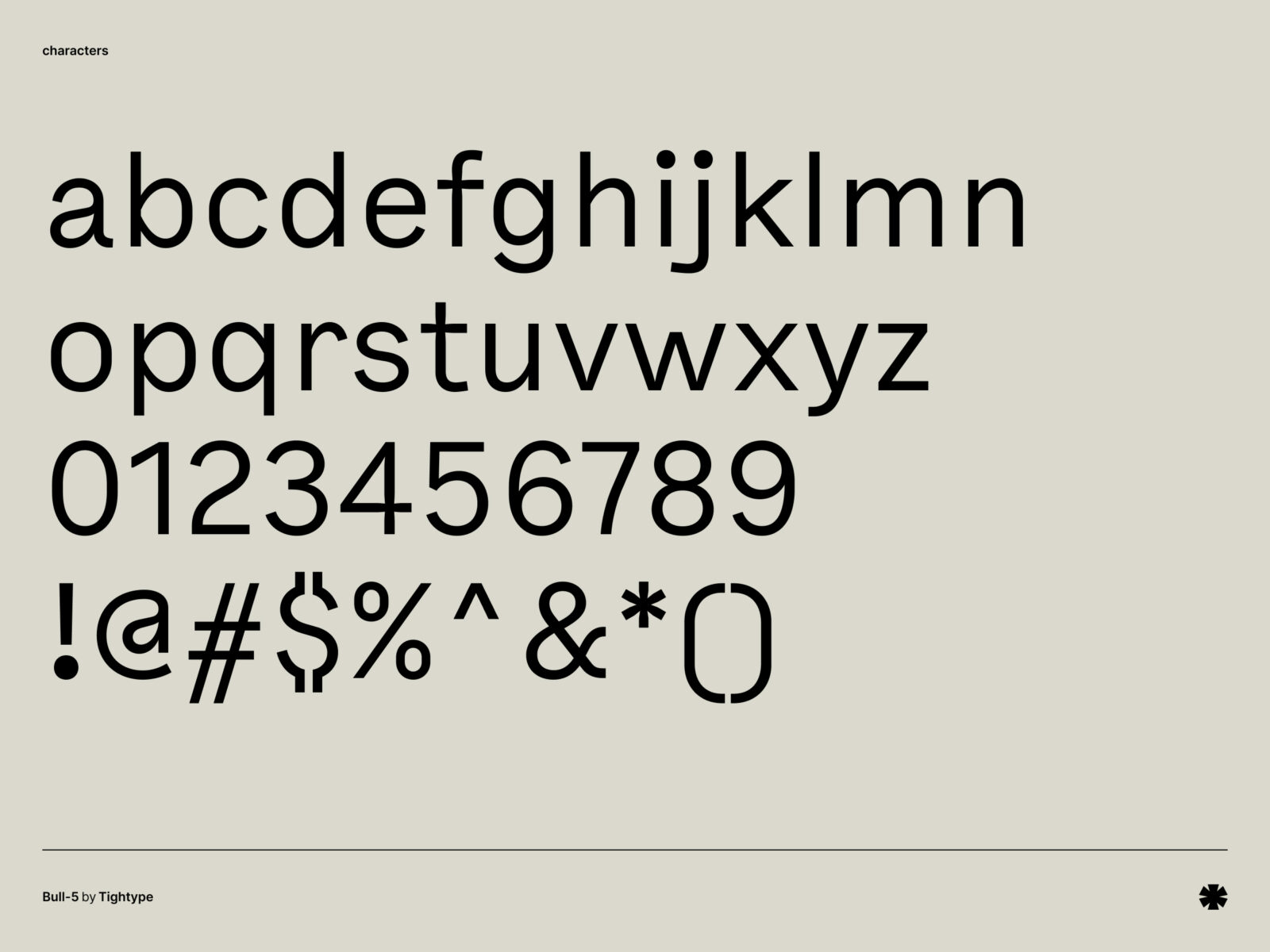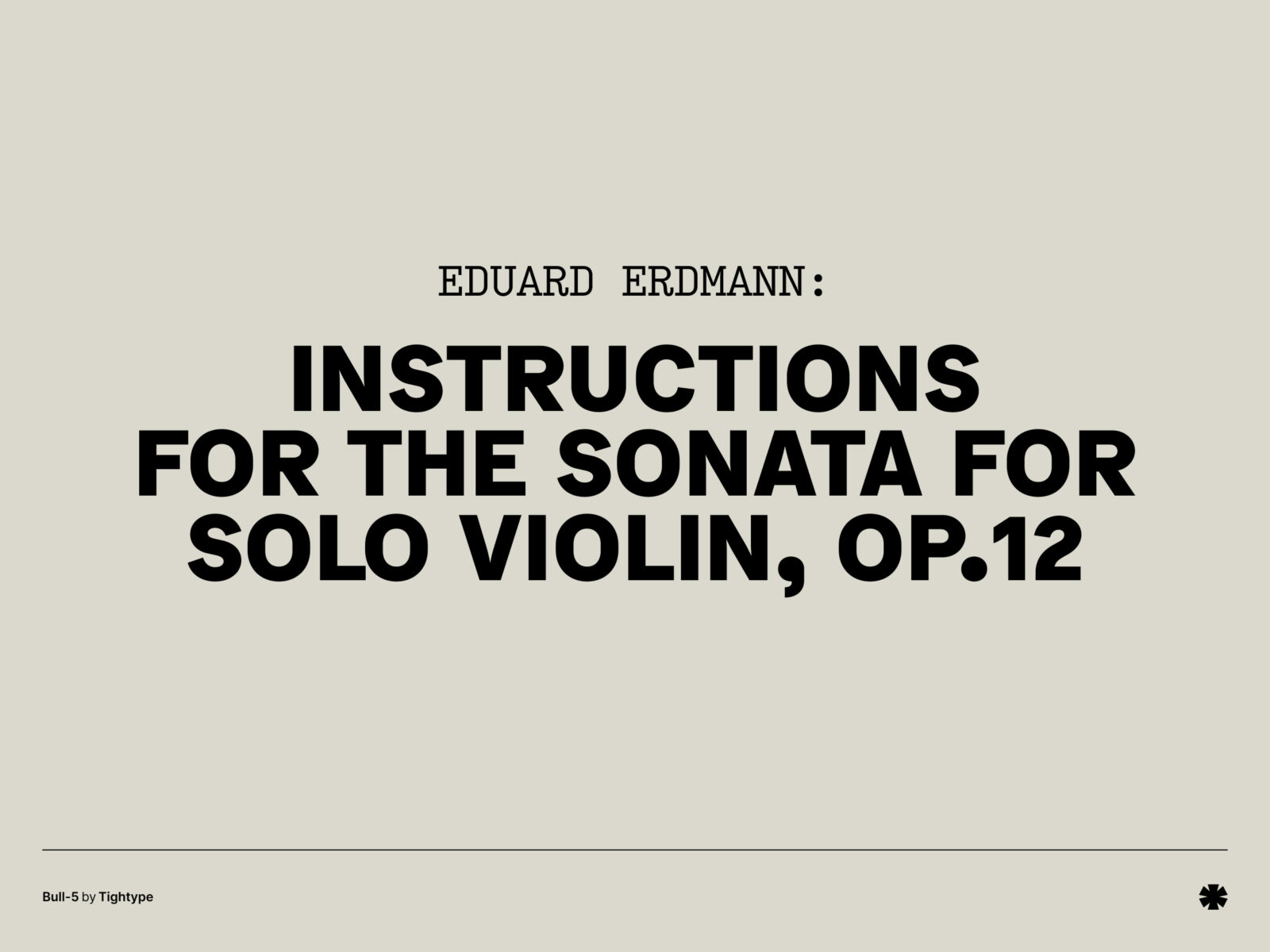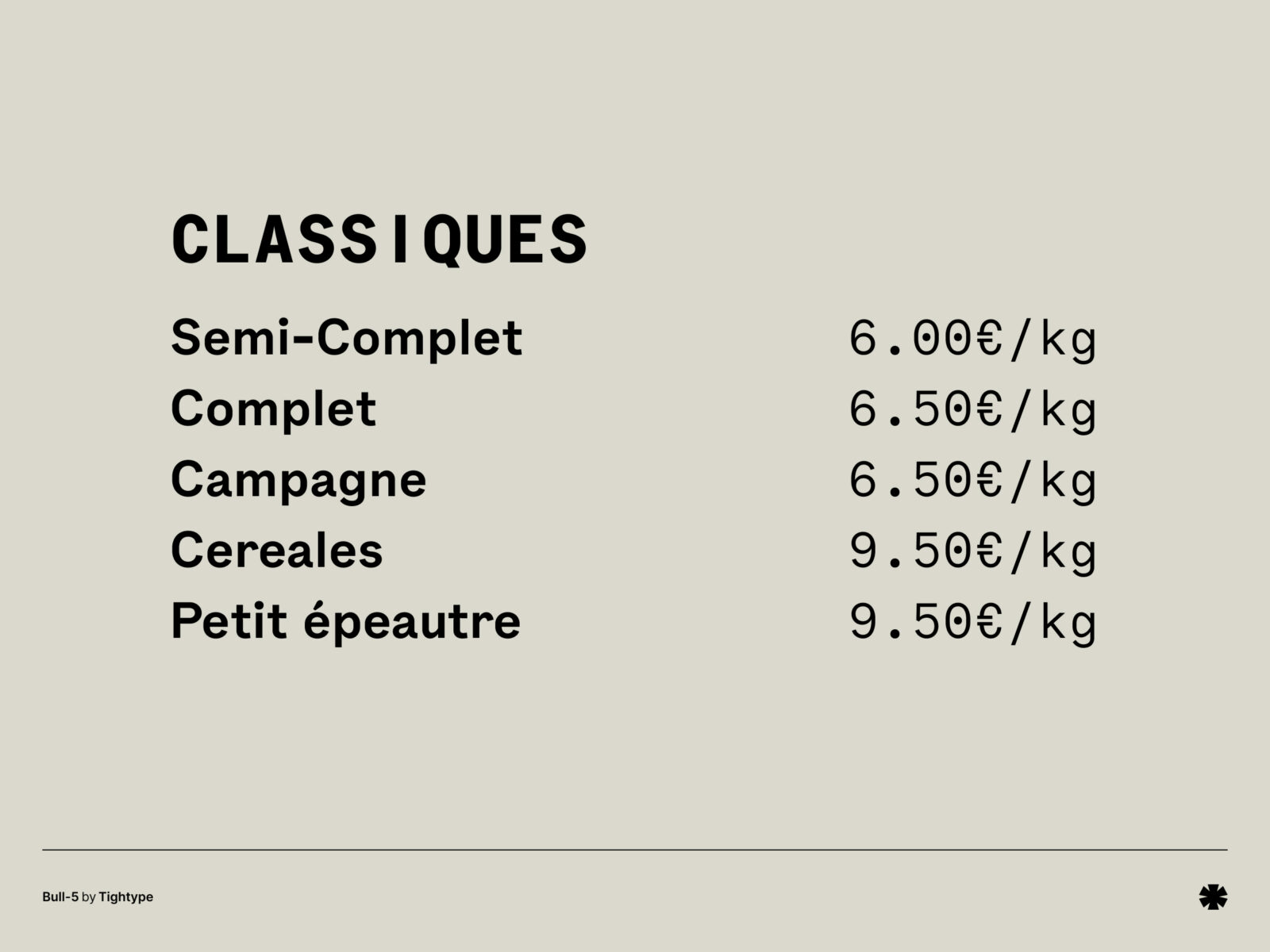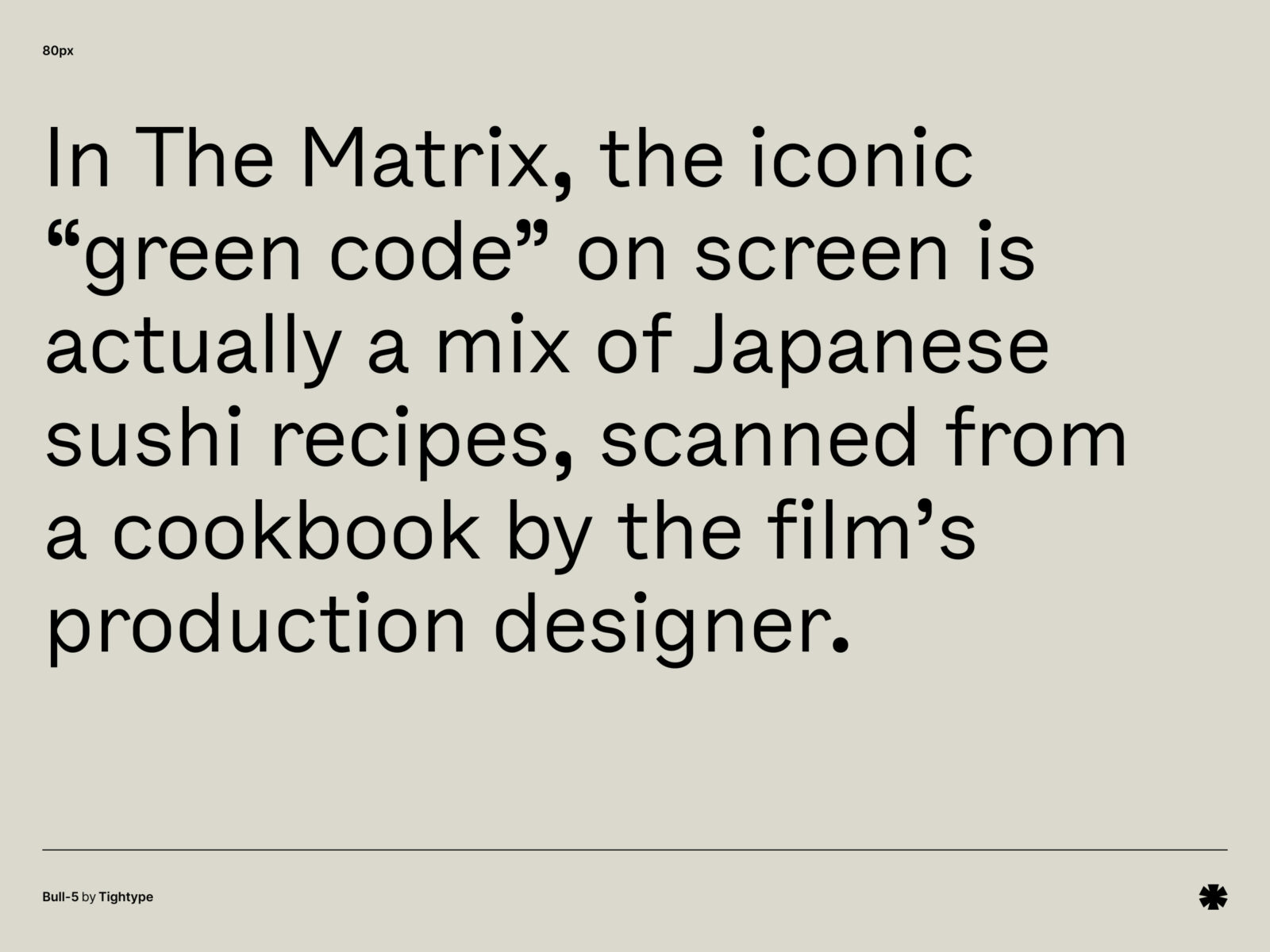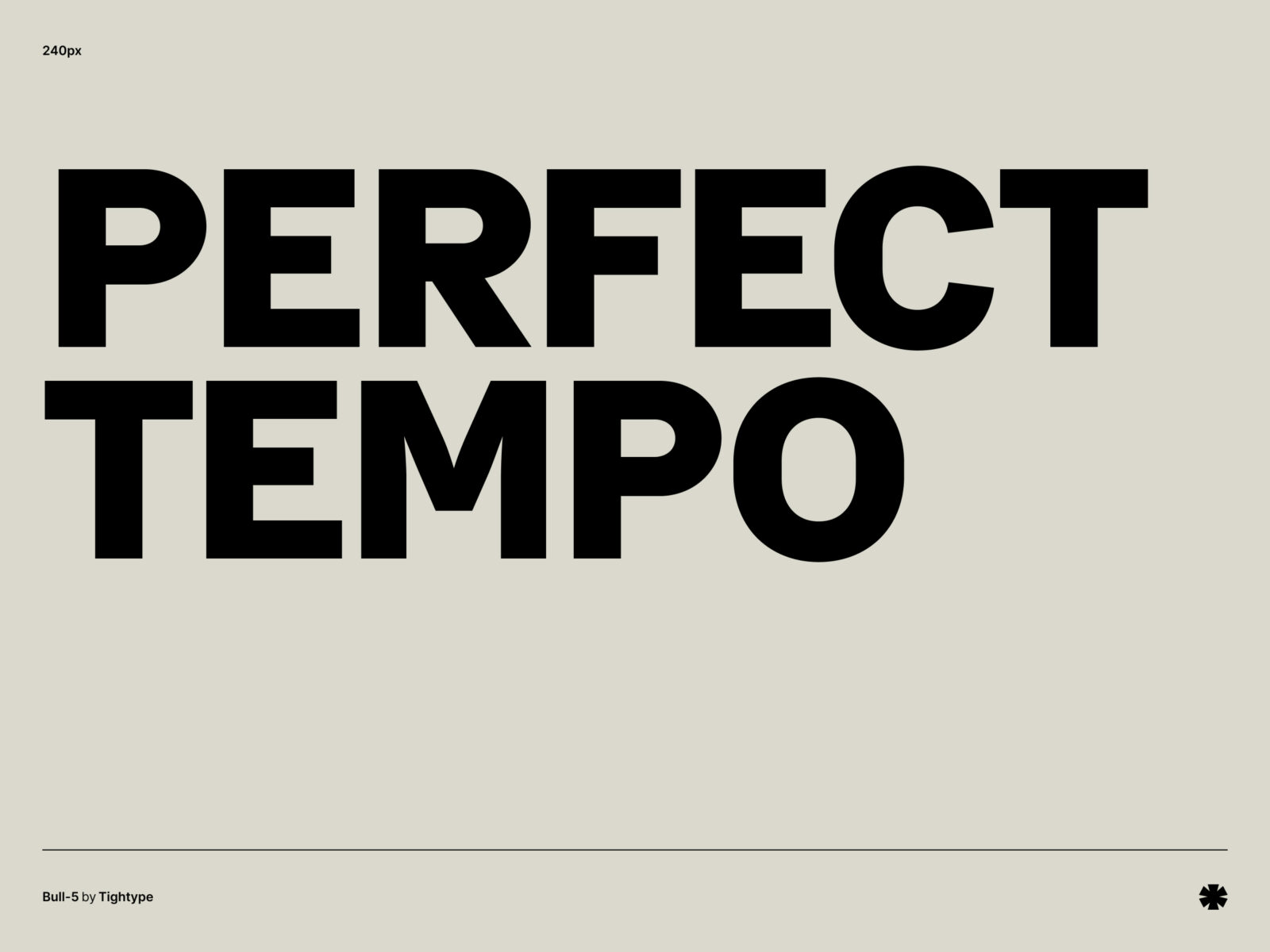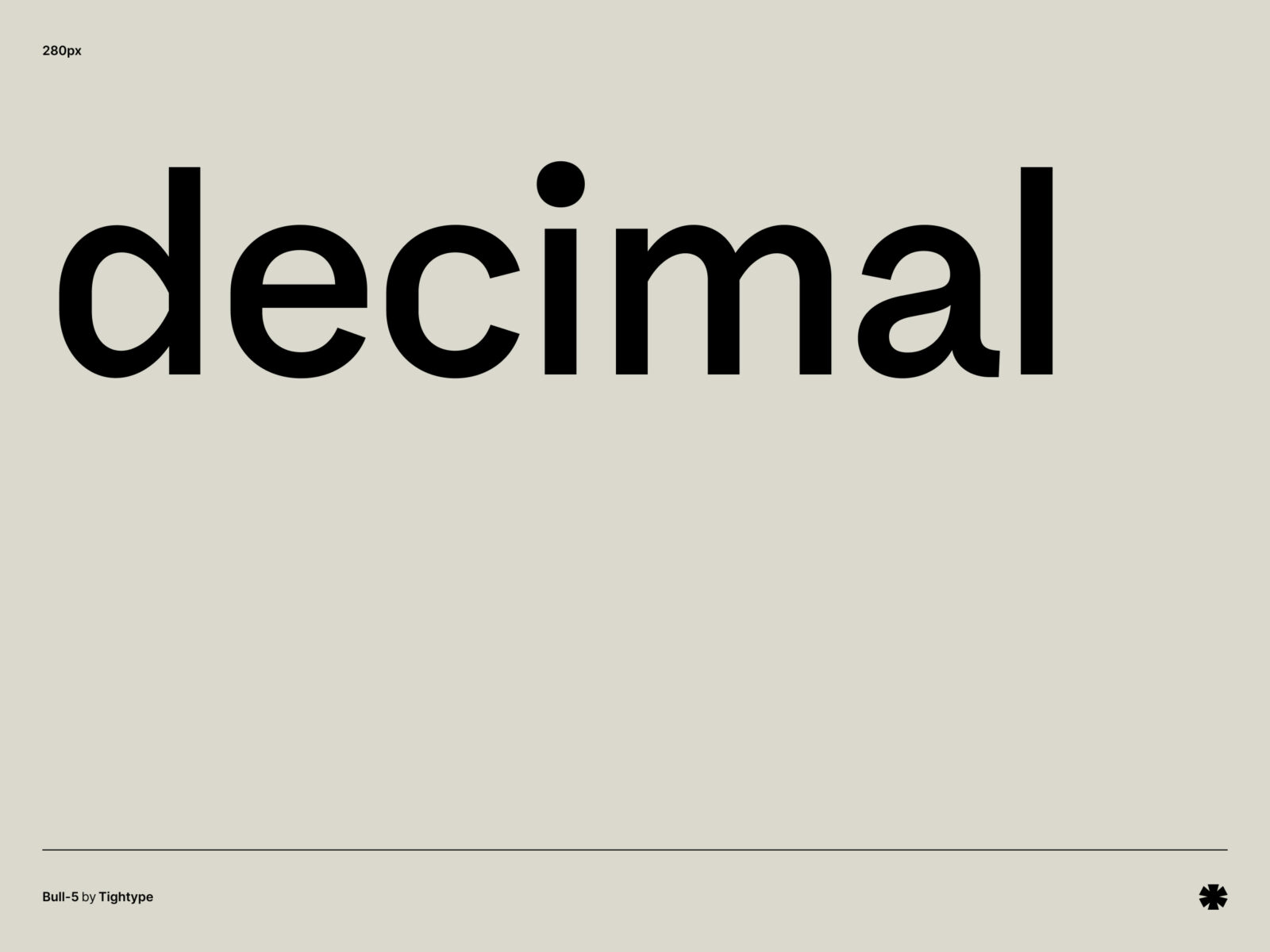
Bull-5 takes cues from a funky little typewriter font trend that popped up in the 60s, probably sneaking in through Olivetti, which is an Italian office gear maker.